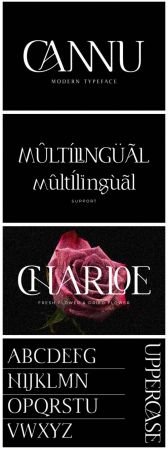
Cannu is a modern serif font. It is the perfect choice for people looking for clean, modern, minimalist, elegant, beautiful design styles.
It is suitable for almost any graphic design such as logos, branding materials, business cards, gift cards, t-shirts, covers, thumbnails, prints, posters, photography, quotes, and much more.